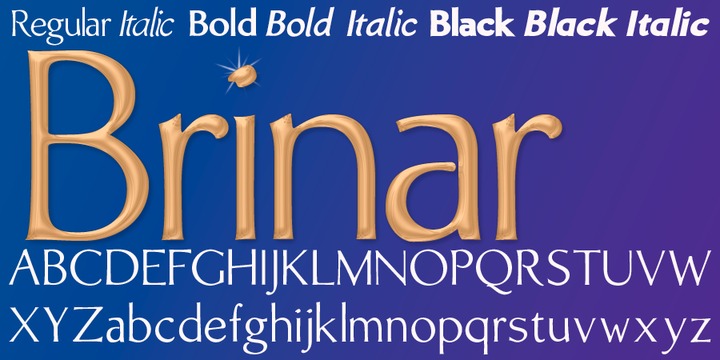
Brinar
from Hackberry
Designed by: David Bergsland
Designed when: 2006
Design owned by: Hackberry
Brinar
I've been working on a usable sans serif for body copy since the mid-1990s (though I certainly did not know it at the time).
This one works well. It started life back in the mists of time as an old Dutch Bible font. It was developed fully as a synergized serif with strong traditional roots and released as Bergsland Pro.
Now it finally makes it to where I was headed all along as a sans text font. This is a well modulated humanist, sans serif font family with many OpenType features and over 600 characters: Caps, lower case, small caps, ligatures, swashes, small cap figures, old style figures, numerators, denominators, accents characters, ordinal numbers, and so on.
It is designed for text use in body copy. But it also works very well for elegantly stylized display.